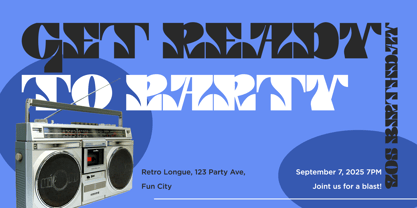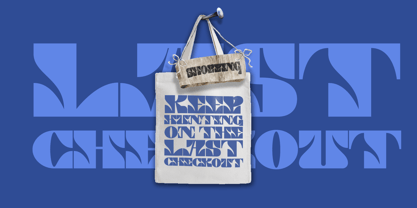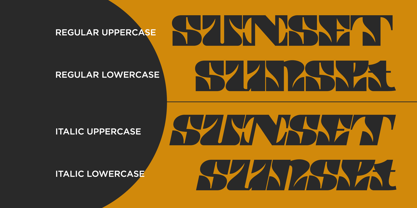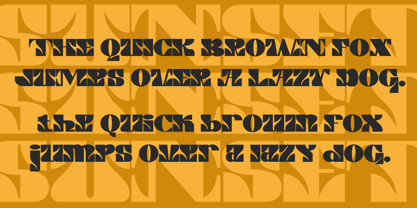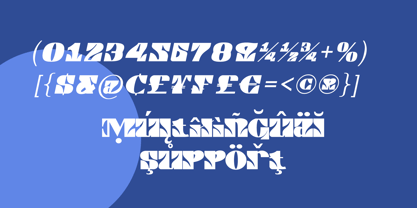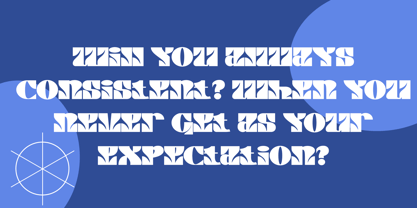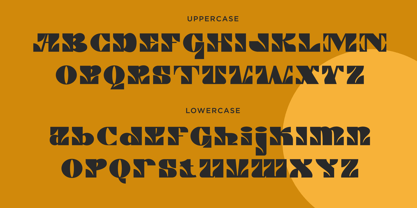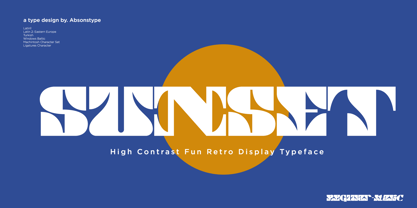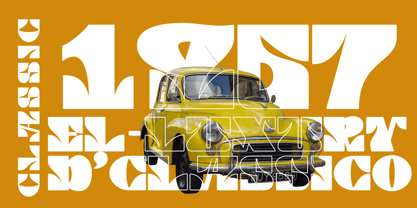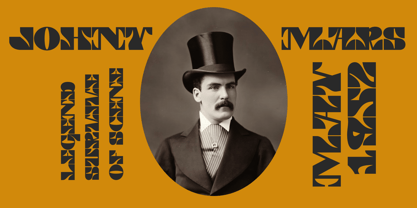
Sunseta
Die Schriftfamilie Sunseta wurde von Sarwo Edhi Prayitno, Edhi Prayitno entworfen und von Absonstype veröffentlicht. Sunseta enthält 2 Stile und Familienpaketoptionen.
SUNSETA is the High Contrast display typeface with combine uppercase and lowercase looks and feel nice balanced.
Honestly it works perfectly for headlines, logos, posters, packaging, T-shirts and much more.
Font Features :
• Regular and Italic version
• Character set A-Z in Uppercase and Lowercase
• Numerals & Punctuation
• Accented Characters
• Multiple Languages Supported